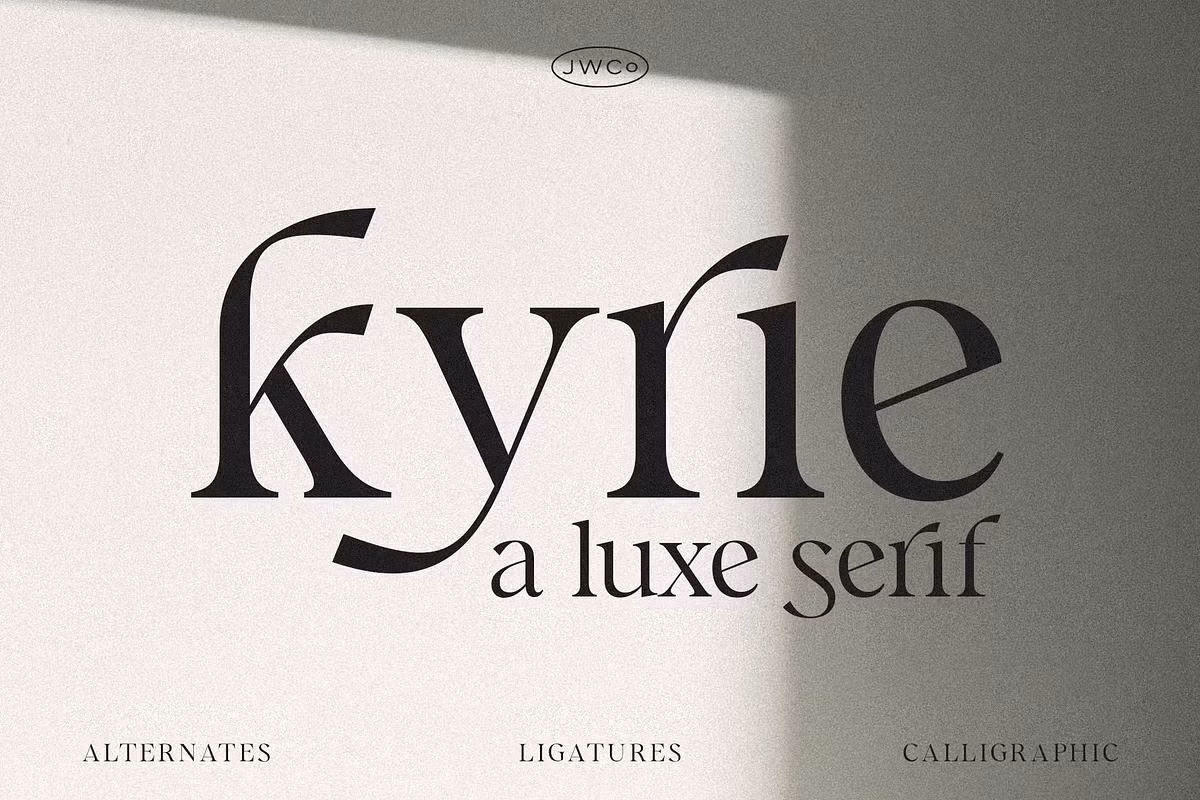
Kyrie: A Luxe Calligraphic Serif Font Free Download is an elegant and sophisticated typeface that combines the beauty of calligraphy with the timeless appeal of a classic serif. Its graceful curves, high contrast strokes, and refined details make it perfect for luxury branding, editorial design, invitations, and any project that requires a touch of class and sophistication.
The luxurious design of Kyrie adds a personal, artistic feel to your typography while maintaining legibility and balance. Whether you’re working on upscale marketing materials, wedding invitations, or high-end product packaging, Kyrie brings a polished, elegant look to your designs.